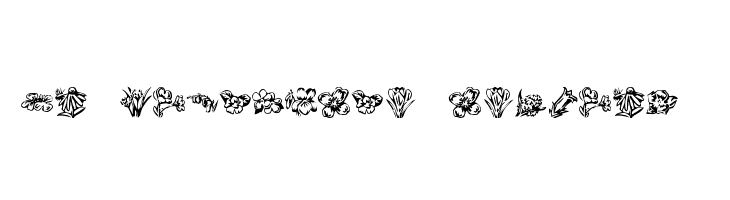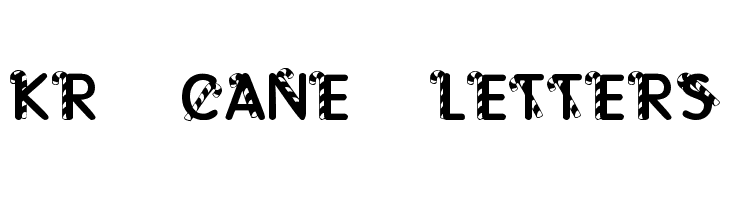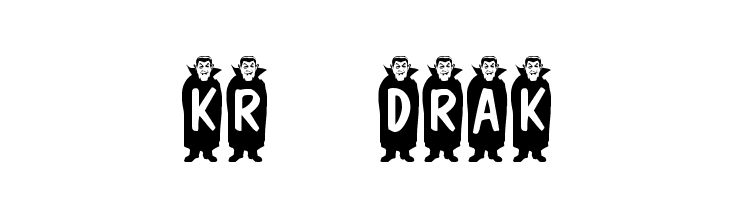
Hand-drawn floral dingbat font with unique flower illustrations.
A playful, candy cane-inspired decorative font with bold, striped letters.
A whimsical font with letters inside cartoon vampire figures, perfect for themed designs.